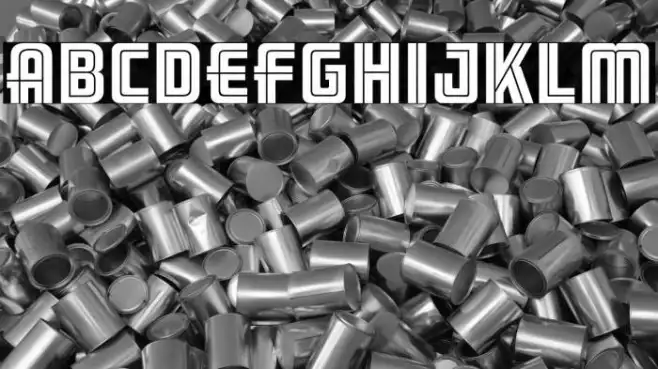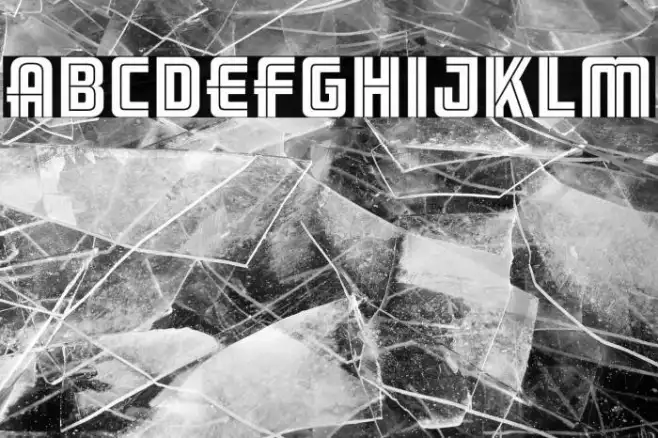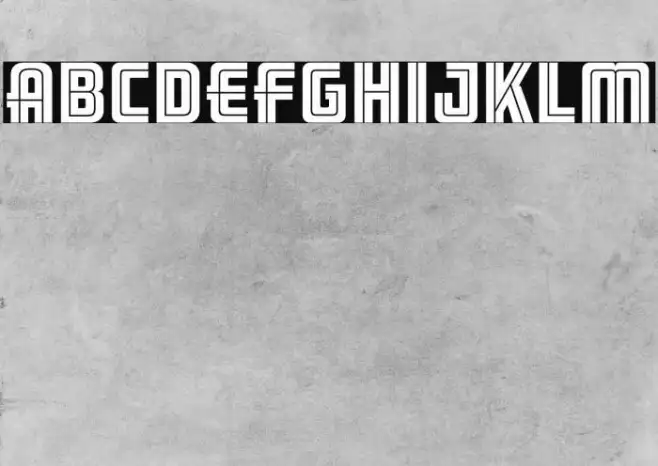
ARB 66 Neon Line JUN-37 Font
ARB 66 Neon Line JUN-37 Description
This font features a bold, geometric design with a distinct double-line structure that gives it a neon-like appearance. The characters are uppercase and lowercase letters, numerals, and a variety of special symbols. Each letter is crafted with precision, showcasing a futuristic and modern aesthetic. The font's unique style is characterized by its clean lines and symmetrical forms, making it stand out in any design project. The spacing between characters is consistent, providing a balanced and harmonious look. This font is ideal for projects that require a striking and contemporary visual impact.
Proposed ProjectsIdeal for branding, signage, posters, and digital media that require a modern and eye-catching style.